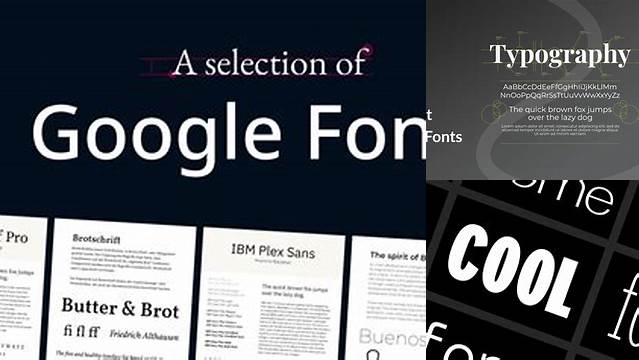
Cool Google Fonts: Best Picks For Websites
Alright, guys, let's dive into the awesome world of Google Fonts and how you can use them to make your websites look absolutely stunning! Choosing the right fonts can seriously elevate your design, making your site more readable, engaging, and, frankly, more professional. We'll explore some of the coolest Google Fonts out there, how to pick the perfect ones for your project, and how to get them up and running on your site. Buckle up; it's going to be a fun ride!
Understanding the Power of Typography in Web Design
Guys, before we jump into the font recommendations, let's talk about why typography matters so much. Typography, in simple terms, is the art and technique of arranging type to make written language legible, readable, and appealing. Think of it as the visual representation of your website's voice. Typography plays a crucial role in shaping how users perceive your brand and content. When you use the right fonts, you can instantly create the mood and personality you want to convey. A clean, modern font might suggest professionalism, while a playful, handwritten font could make your site feel more approachable and creative.
Google Fonts offers a vast library of fonts that are free and easy to use. This is a game-changer for web designers of all levels. It removes the barrier of expensive font licenses and makes it possible for anyone to create a beautiful website. But the benefits go beyond just aesthetics; good typography also affects user experience. Well-chosen fonts improve readability, making it easier for visitors to consume your content. This, in turn, keeps them on your site longer and encourages them to engage with your material. Conversely, poorly selected fonts can frustrate users, leading to high bounce rates and a negative impression of your brand. Furthermore, considering that different fonts evoke different emotions, understanding the psychology of typography is key. Serif fonts, like Times New Roman, are often seen as traditional and trustworthy, whereas sans-serif fonts, like Arial, are perceived as modern and clean. So, if you're building a website for a law firm, a serif font might be a good fit. However, if you're creating a blog for a tech startup, a sans-serif font might be more appropriate. It's all about finding that balance between aesthetics and functionality. Consider the overall design and layout of your website. The chosen fonts should complement these aspects, not compete with them. Think of the font as part of the bigger picture; they are the details that create the whole.
Enhancing User Experience Through Font Choices
Alright, friends, let's dive into how your font choices directly impact your website's usability. Imagine landing on a website where the text is difficult to read – maybe it's too small, the spacing is off, or the font itself is just clunky. You'd probably click away pretty fast, right? Well, that's the power of good typography. It’s all about making your website user-friendly and ensuring visitors have a smooth, enjoyable experience. When you choose fonts wisely, you're essentially guiding users through your content, making it easier for them to find the information they need and understand it. The goal is to enhance readability, and there are a few things to keep in mind: font size, line height, and color contrast. The font size has to be large enough for easy reading. Too small, and people will squint; too big, and it might look clunky. Line height, or leading, is the space between lines of text. If the lines are too close together, it can be hard to distinguish between them, making the text appear dense. If the lines are too far apart, it can disrupt the flow of reading. Color contrast is also critical. Make sure your font color contrasts well with the background.
A dark font on a light background is usually best for readability. But it's not just about reading. Font choice also influences how users perceive your website and brand. The right font can help create the right mood and message, aligning with your brand's personality and values. Think about your target audience. What fonts do they prefer? What style aligns with their preferences? A website for a children's brand might use a playful font, while a professional website for a financial institution might opt for a more formal font. It is also essential to consider the different devices your website will be viewed on. Your chosen fonts should look great across all devices, from desktop computers to smartphones and tablets. Use a responsive design to achieve this, along with optimizing font sizes for different screen sizes. By taking all these factors into account, you'll be able to create a website that's both visually appealing and user-friendly, leading to improved engagement and conversion rates. In the end, choosing fonts is all about making the website a more pleasant experience for the user.
Top 10 Cool Google Fonts for Your Website
Alright, let's get to the good stuff! Here are ten of the coolest Google Fonts that can seriously up your website's game. Each has its own unique vibe, so you can find the perfect match for your project:
1. Open Sans: The Versatile Classic
Guys, let's start with a classic that's popular for a reason. Open Sans is a humanist sans-serif font, which means it has a friendly and approachable feel. It's clean, legible, and works well for both body text and headings. Open Sans is incredibly versatile, making it a solid choice for almost any website. It is like that one friend who gets along with everyone! It is especially great for websites that need a professional but not overly formal look. It’s easy on the eyes and works great in all sizes. Its simplicity allows it to blend in seamlessly with any design, making it a great choice for a base font to use across your website. Plus, it's available in a wide range of weights, so you can use it to create visual hierarchy without getting too crazy. Open Sans also performs well across different screen sizes, making it a reliable choice for responsive designs. The neutrality of Open Sans means it doesn't impose a strong personality on your design, which is helpful if you want the focus to be on your content or brand message. It is also known for its excellent readability, making it a good option for websites with a lot of text. You can mix and match Open Sans with other fonts to create more visual interest. All in all, it’s a safe bet that delivers a high level of readability and versatility. Whether you are building a blog, an e-commerce site, or a corporate website, Open Sans is an excellent starting point.
2. Roboto: The Modern Workhorse
Alright, let’s talk about Roboto – the workhorse of the web. Roboto is another sans-serif font that’s all about clean lines and a modern aesthetic. It's known for its geometric shapes and excellent readability, making it a great choice for websites with lots of text. It is designed to look good on screens of all sizes, which makes it especially well-suited for mobile-first design. Roboto is a reliable choice that provides a modern and streamlined feel. What I mean is that it's a highly readable font that comes across as both professional and clean. Its design ensures it looks great in headlines and body text, making it an ideal choice for any website.
Roboto's versatility is one of its key strengths. It comes in different weights and styles, allowing you to create visual hierarchy within your designs. You can use a thicker weight for headings to make them pop, and a regular weight for body text to ensure easy reading. The font has been carefully designed to be readable at small sizes, making it great for responsive layouts. It is well-suited for apps and websites where content is prioritized. Plus, it's designed to work seamlessly across different platforms. If you're aiming for a contemporary look, Roboto is a fantastic pick! It's not too flashy and won't distract your users from the content. It’s a safe and reliable choice for any website.
3. Lato: The Friendly and Approachable Option
Alright, here comes Lato! It is a sans-serif font that is known for its friendly and approachable nature. It is a great choice if you want your website to feel welcoming and easy to navigate. Its rounded letterforms give it a warm and inviting personality. Lato's clean design makes it incredibly versatile, working well for both body text and headlines. It is very readable, making it suitable for websites with a lot of written content.
Lato's appeal lies in its balance of modernity and readability. Its letters are slightly rounded, giving it a soft and approachable appearance. This makes it ideal for creating a user-friendly interface. Because of its wide range of weights and styles, Lato is very flexible, allowing you to establish a clear visual hierarchy. Thicker weights can draw attention to headlines, while thinner weights can be used for body text without sacrificing readability. It's also highly readable at different sizes, making it ideal for both desktop and mobile devices. Lato's gentle curves and clear shapes make it easy for readers to focus on the message rather than struggling to decipher the letters. Lato is not overbearing; instead, it delivers a subtle style and is a great choice for websites looking to create a friendly and engaging atmosphere. Whether you are designing a blog, a portfolio, or any website that needs a touch of friendliness, Lato is a smart choice.